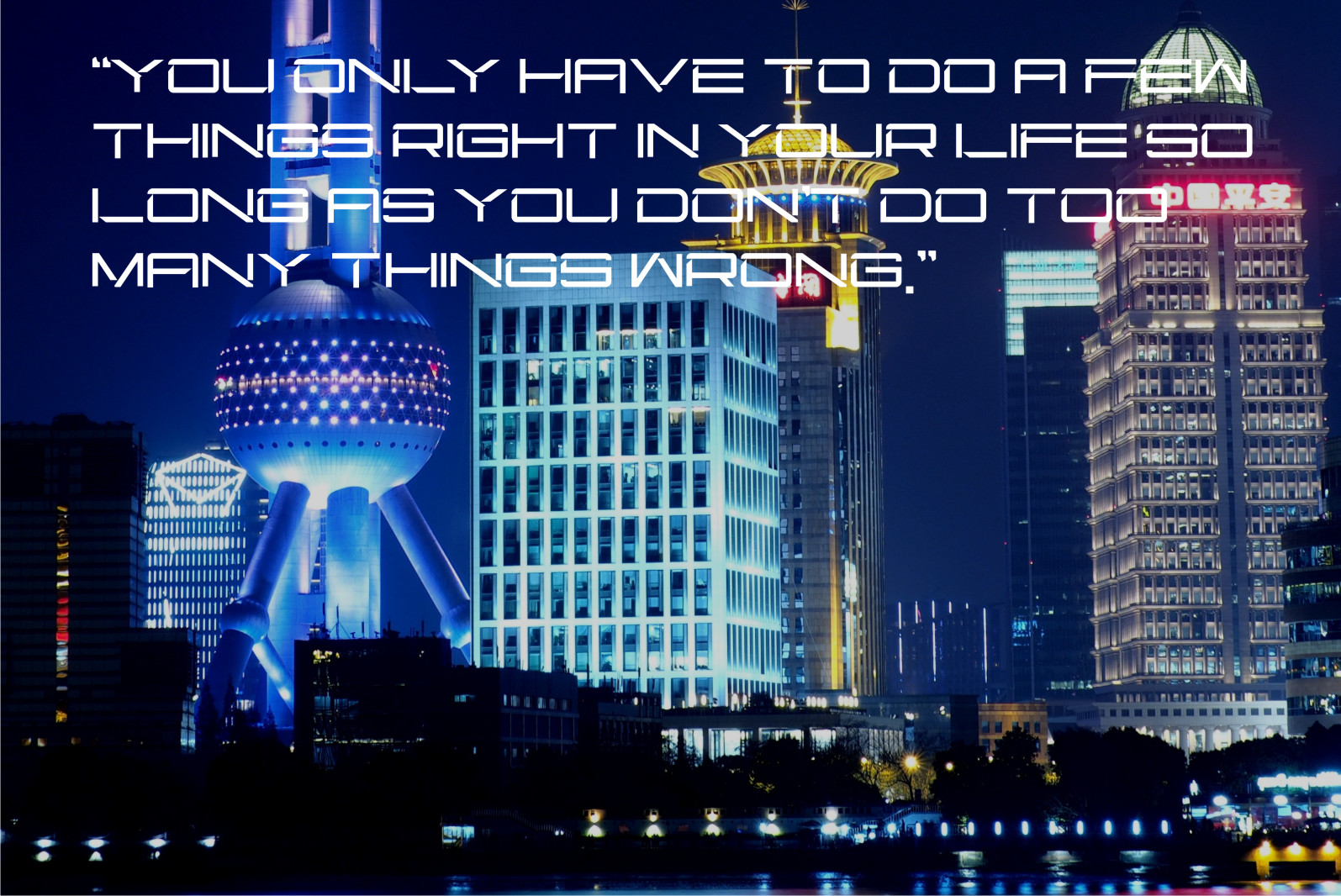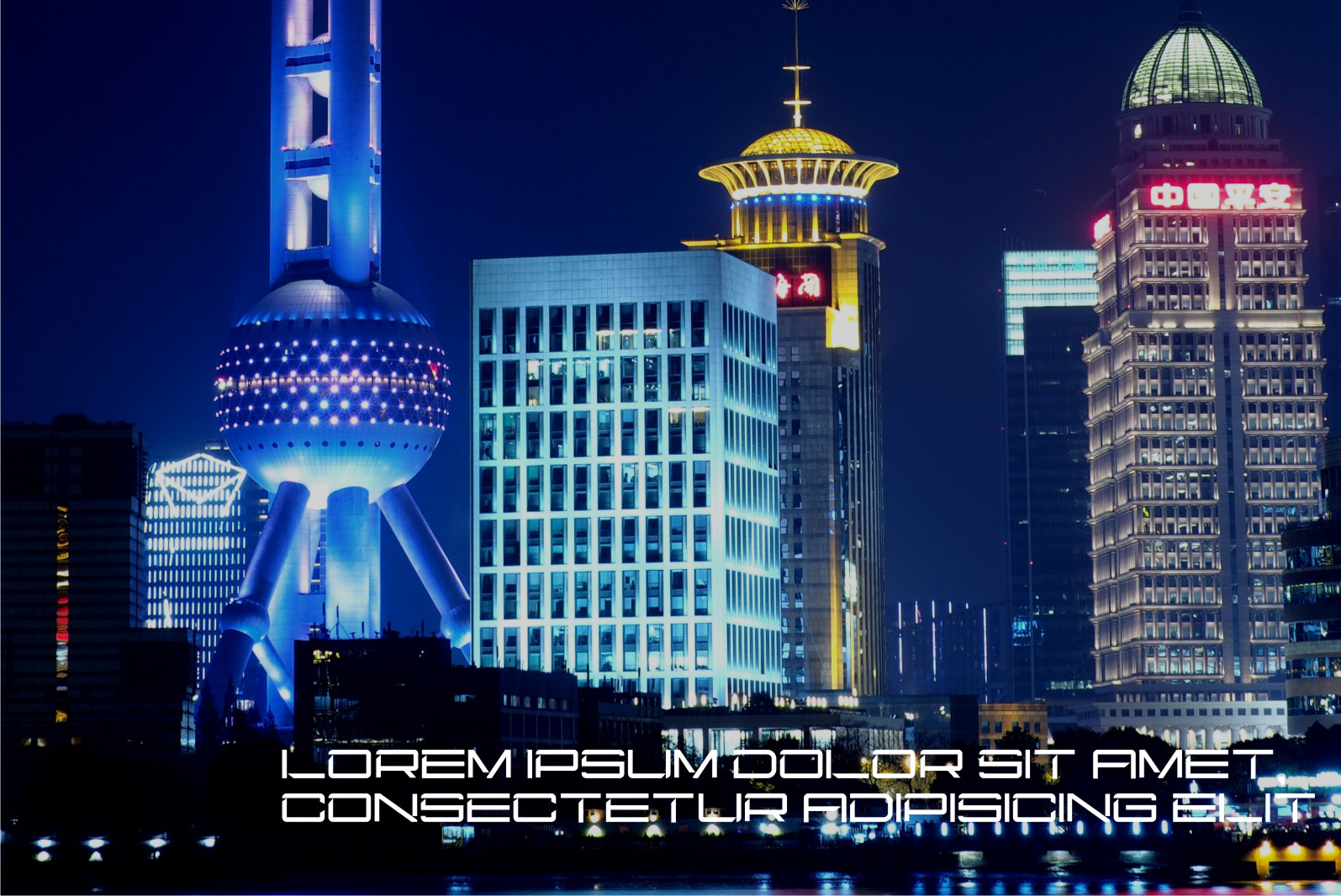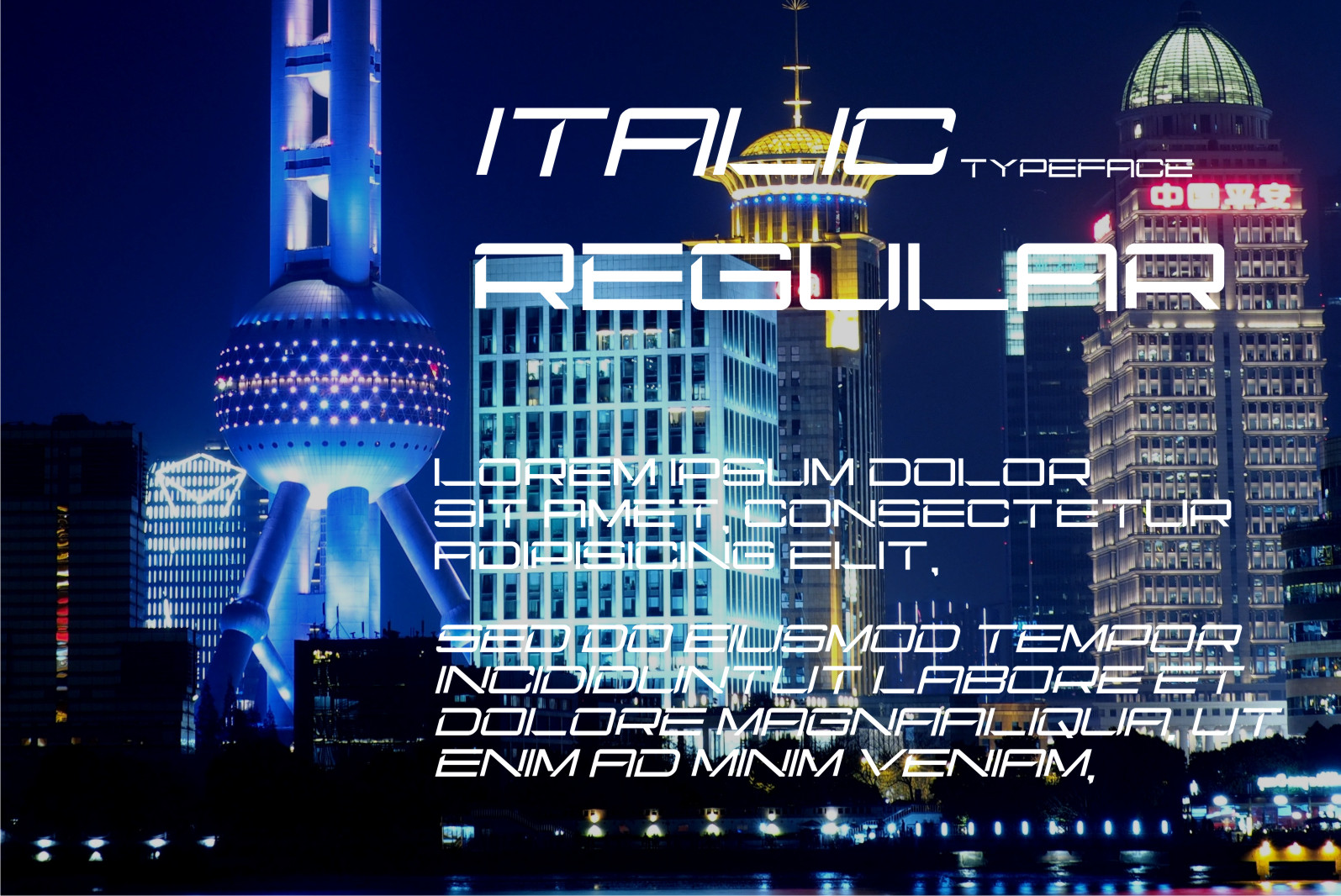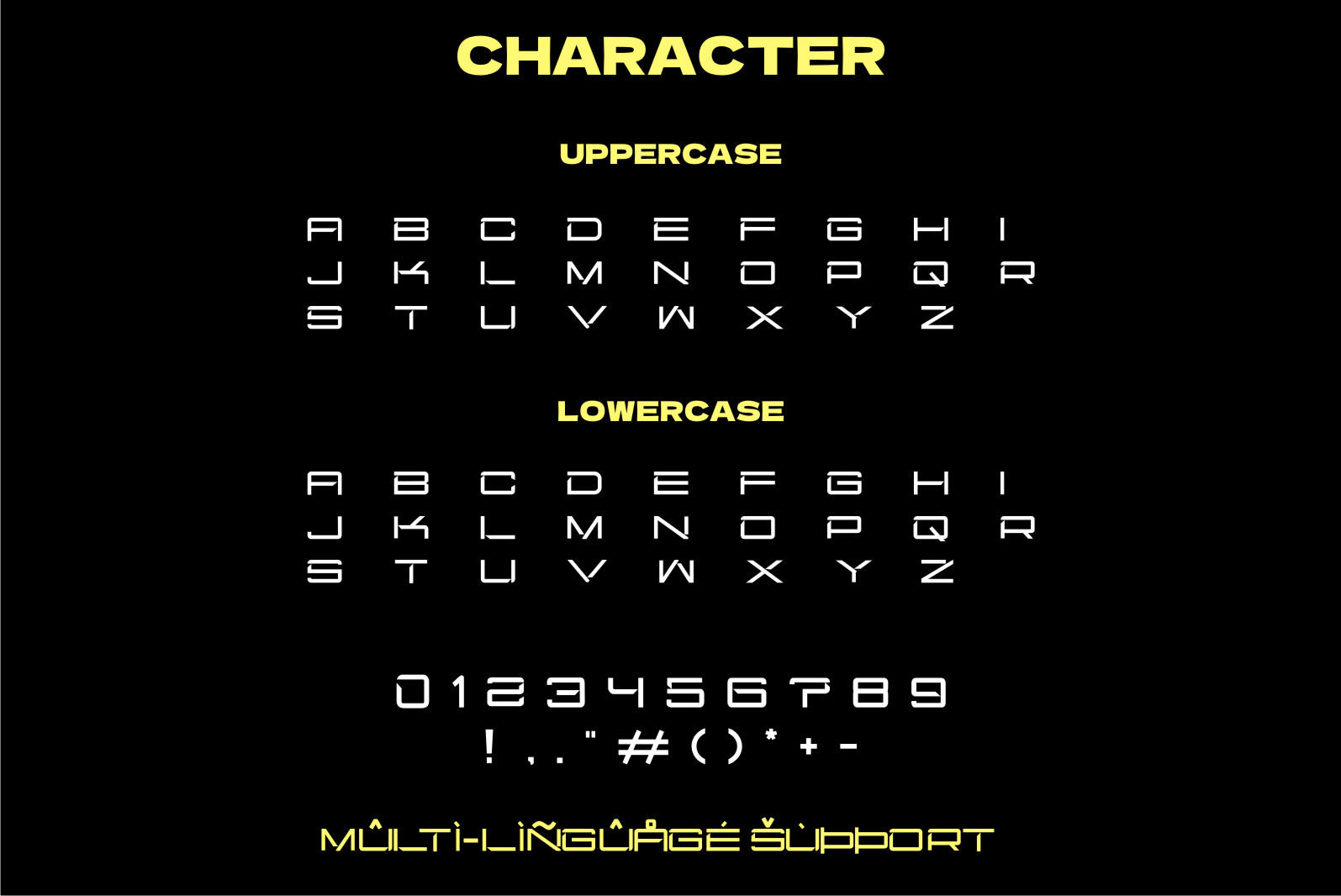
Reber Display Font
It’s a futuristic and robotic-styled display font. This font is ideal for writing web designs, business cards, or pretty much anything else that requires a futuristic touch.